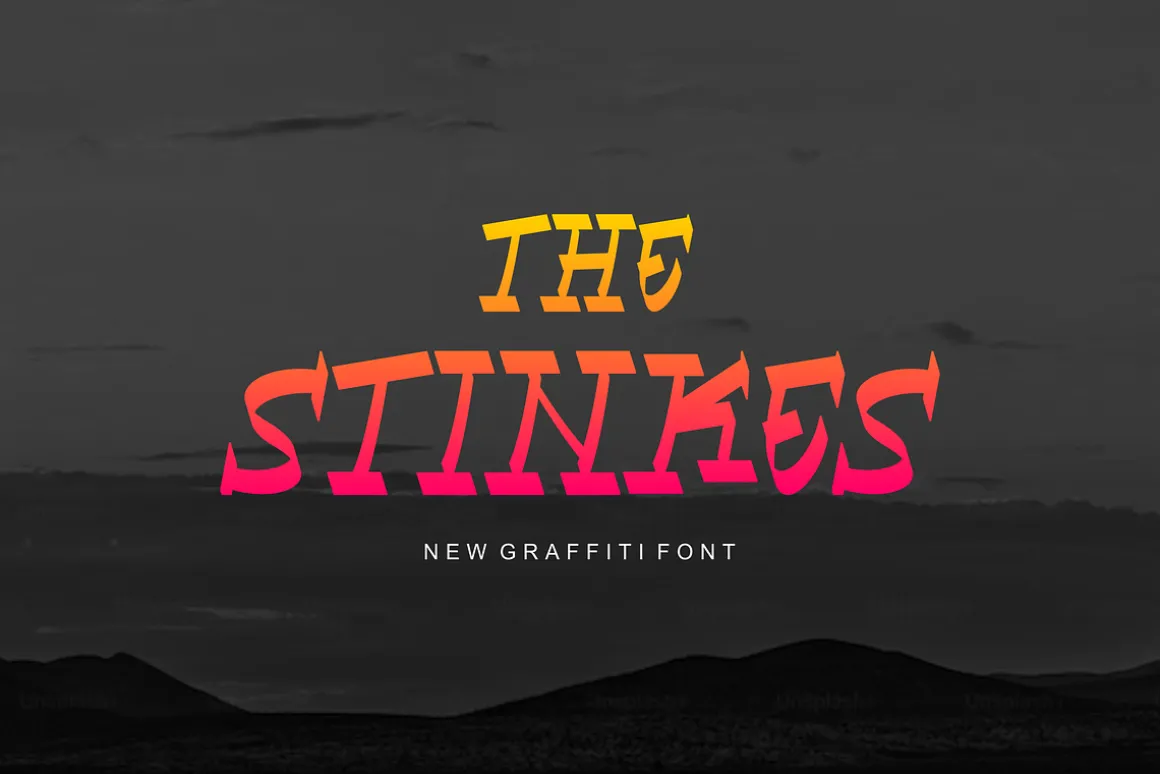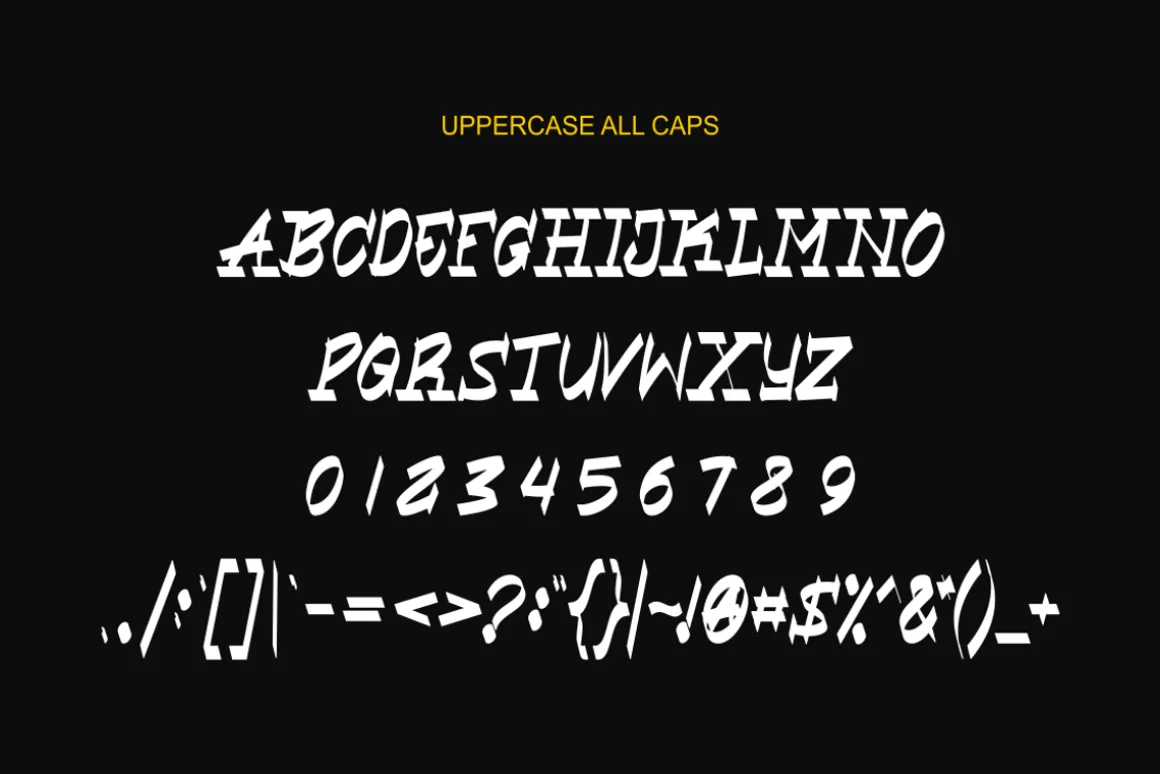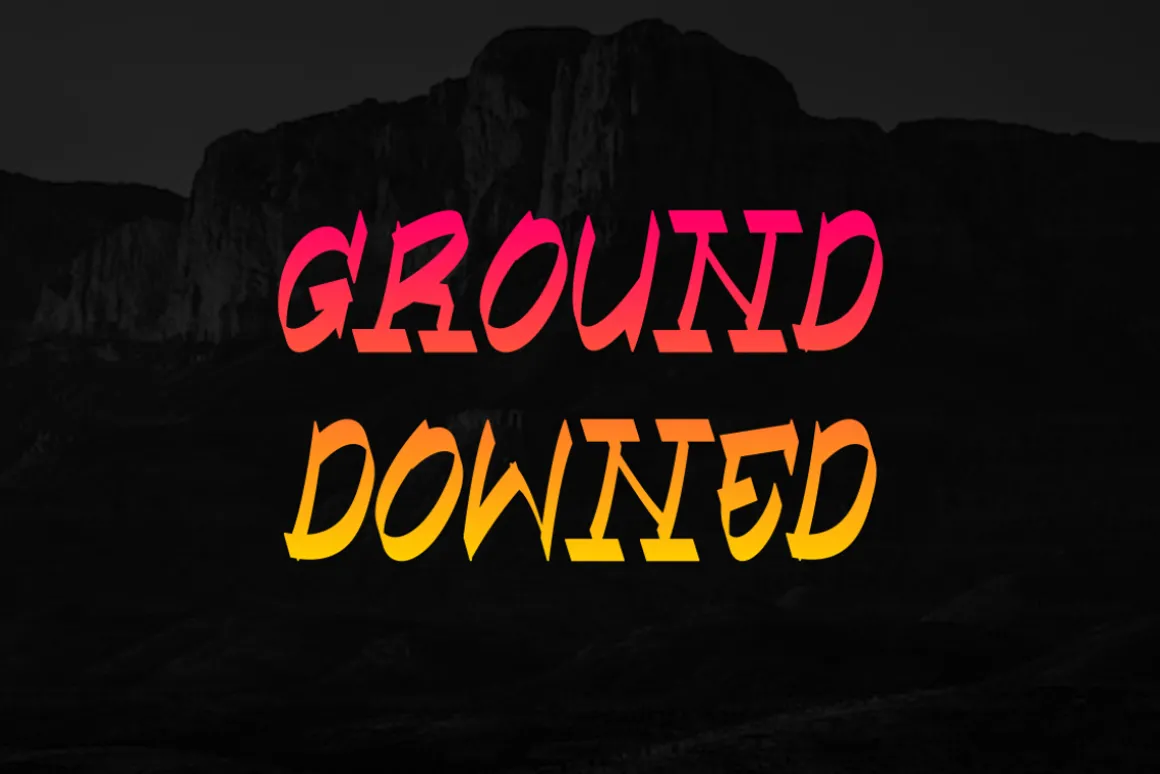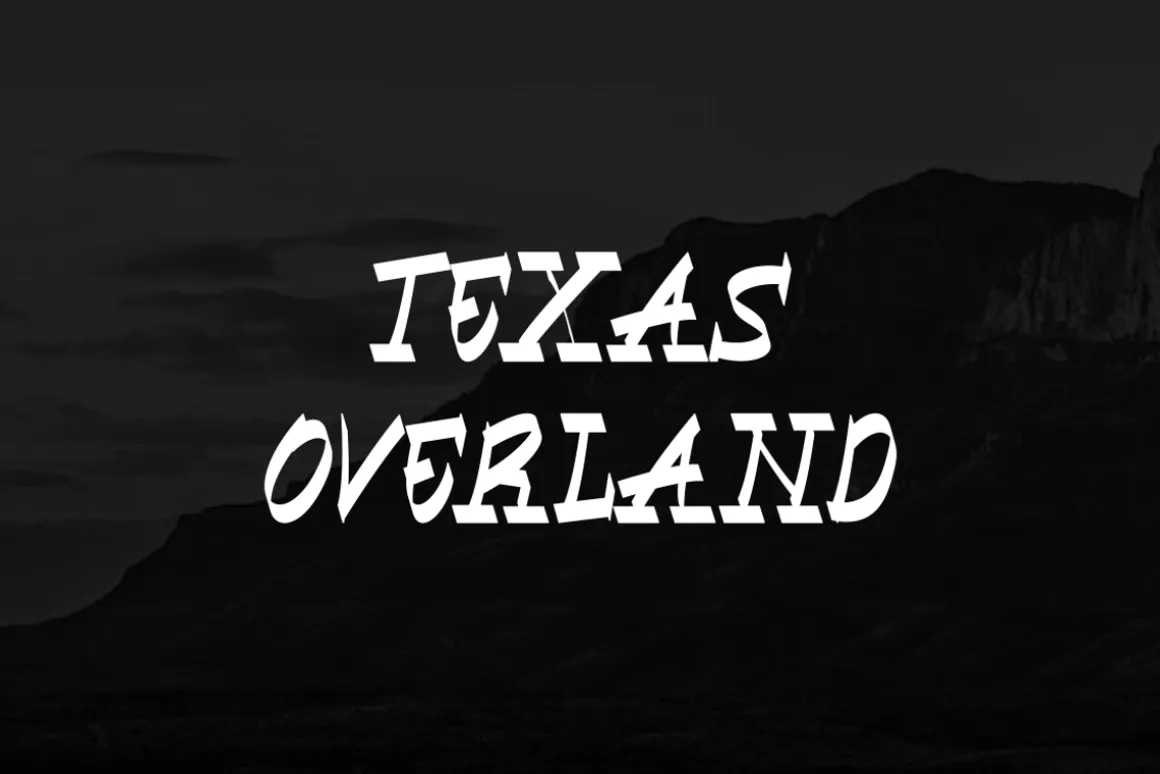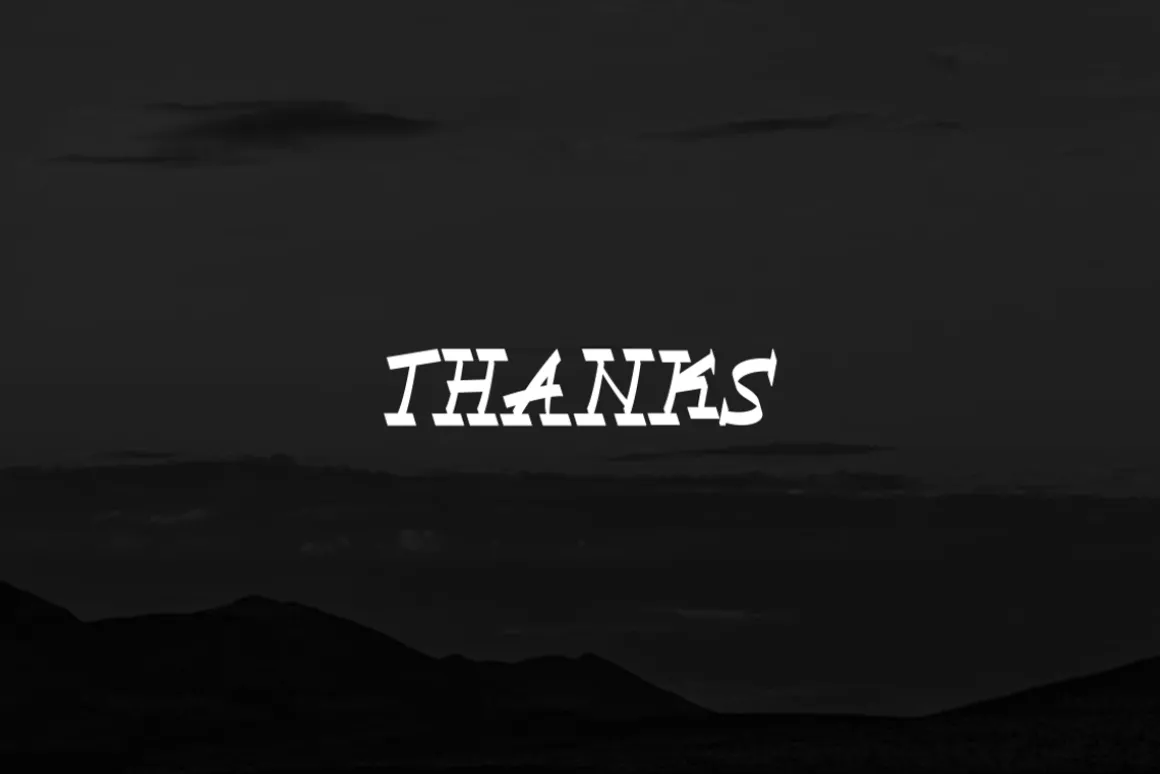
The Stinkes – Font
- Modern Font is a bold and authentic display font.The font is suitable for any branding project like logo, t-shirt printing,,and many more. outstanding in a wide range of contexts.